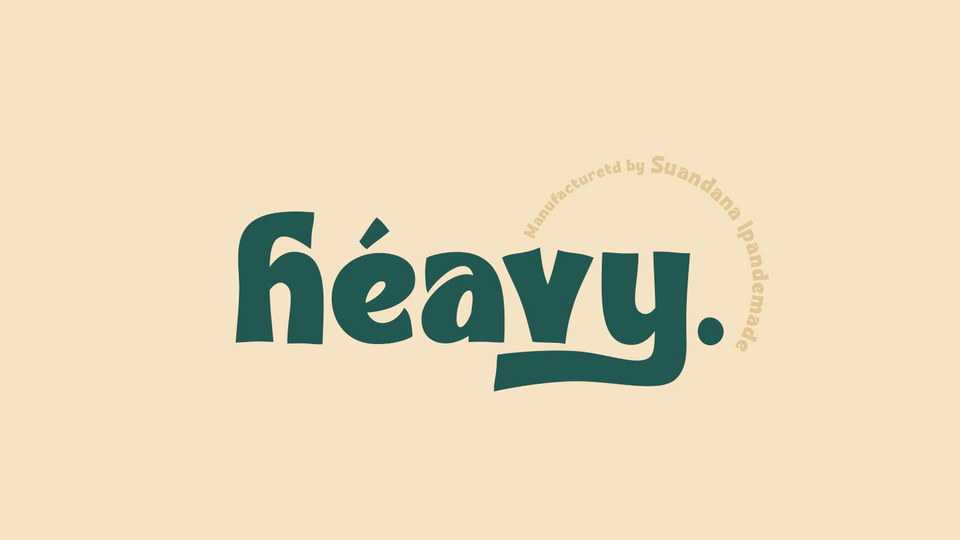
Download Heavy font, a fun bold typeface with unique and playful vibe. Heavy font will be perfect for book, title branding, product packaging, invitation, quotes, t-shirt, label, poster, logo etc.
Designer: TypeClassHeroes